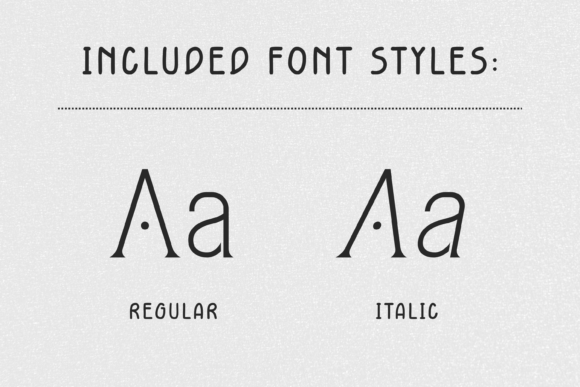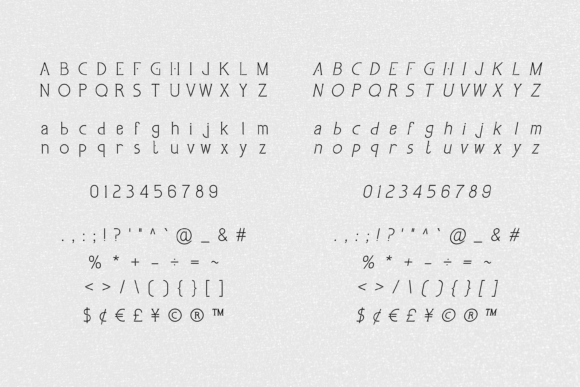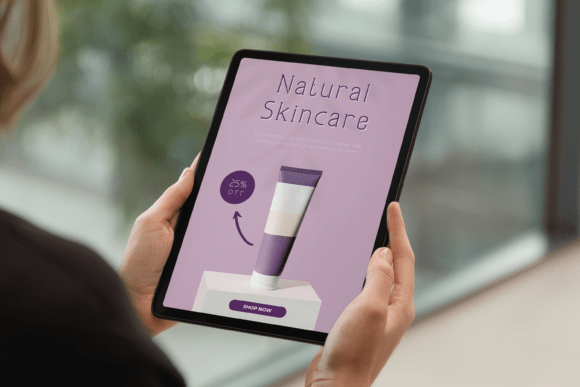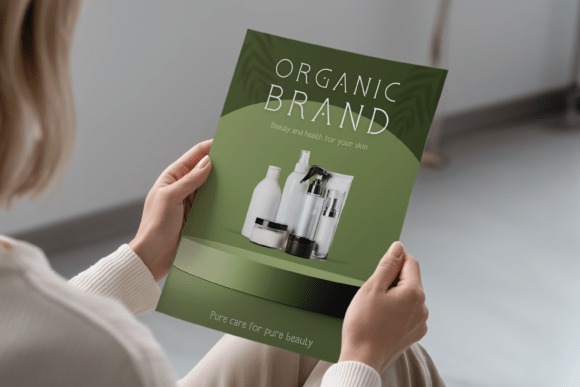
Introduction to Linea Form Font
Have you ever found yourself staring at a blank page, struggling to bring your creative vision to life? That’s exactly where I was when I stumbled upon the Linea Form Font – a game-changing design resource that revolutionized my creative projects. This sleek and refined serif typeface is the perfect combination of modern elegance and minimalist charm, making it an absolute must-have for designers and creatives alike.
With its clean, geometric lines and subtle detailing, the Linea Form Font brings a high-end feel to any project. Whether you’re designing a luxury brand identity or an elegant magazine spread, this typeface delivers style and clarity in perfect harmony. What sets it apart from other design resources is its versatility – from Cricut designs to Procreate lettering, Canva posters, and even DIY holiday crafts, this font is the perfect companion for any creative project.
Key Features of Linea Form Font
- Unique and creative design suitable for various creative projects, such as infographics, brochures, and websites.
- Perfect for designers looking for a unique and professional design resource to elevate their creative project.
Honest Review: Linea Form Font
As a designer, I’m always on the lookout for high-quality design resources to elevate my creative projects. I recently stumbled upon the Linea Form Font, and I’m excited to share my honest review with you.
- The Linea Form Font has a sleek, modern design that’s perfect for minimalist and contemporary projects.
- The font is highly customizable, making it a great choice for designers who want to create unique and eye-catching typography.
- The Linea Form Font doesn’t have a transparent background option, which may limit its use in certain design applications.
- The font is not as versatile as some other design resources, making it less suitable for projects that require a wide range of typography options.
Overall, I’m impressed with the Linea Form Font’s high quality and creative potential. While it may have some limitations, it’s a great choice for designers who want to add a touch of modernity to their projects. I’d definitely recommend it as a design resource for any creative project.
Linea Form Font is ideal for use in creative projects such as logos, brochures, and social media graphics. Its transparent background makes it perfect for use over images or other design elements.